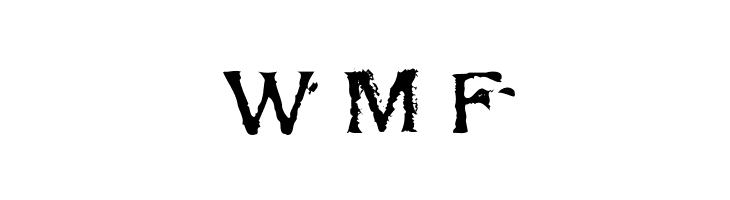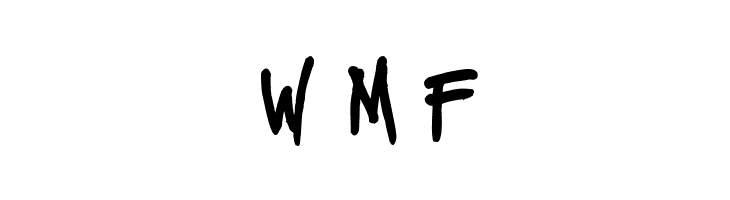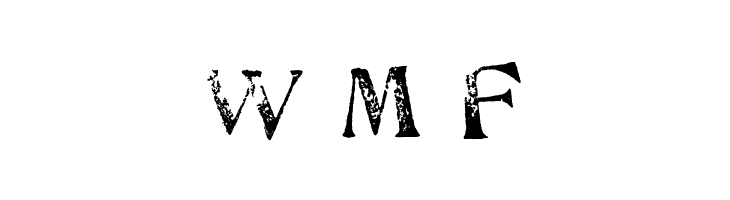
DuererLatinCapitals Font
A classic serif font with elegant, Roman-inspired letterforms.
Splurge Font
A playful, hand-drawn font with a lively and informal style.
DuererLatinConstructionCapitals Font
A geometric, precise Latin capital font with classical design elements.
Thicket Font
An organic, vine-like font with jagged edges and a hand-drawn feel.
Splurge Bold Font
Respess Capitals Heavy Font
A bold, distressed font with a rugged, vintage style.
Respess Capitals Medium Font
A rugged, distressed font with a hand-crafted, organic feel.
RevolvingDoor Font
A whimsical, hand-drawn font with elongated, irregular strokes and a playful aesthetic.
Ticket CapitalsRepressed Font
A distressed, grunge-style font with a vintage yet modern appeal.
DuererEverydayTools Font
A decorative font inspired by everyday tools, featuring intricate and playful designs.
Ticket Capitals Outline Heavy Font
A bold, distressed outline font with a vintage ticket-like style.
Respess Capitals Excessive Font
A distressed, grunge-style font with a bold, textured appearance.
Respess Capitals Light Font
A distressed, textured font with a vintage, rugged appearance.
Ticket CapitalsImpressed Font
A distressed, stencil-style font with a vintage, industrial aesthetic.